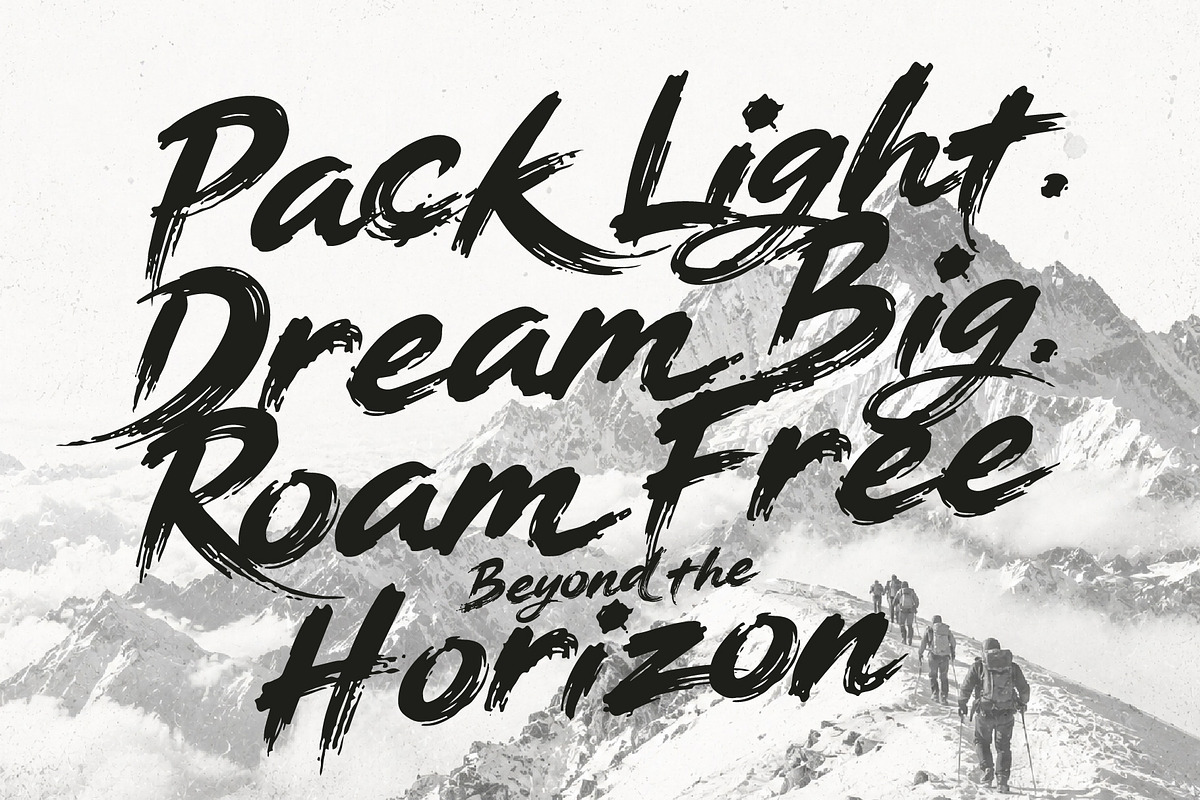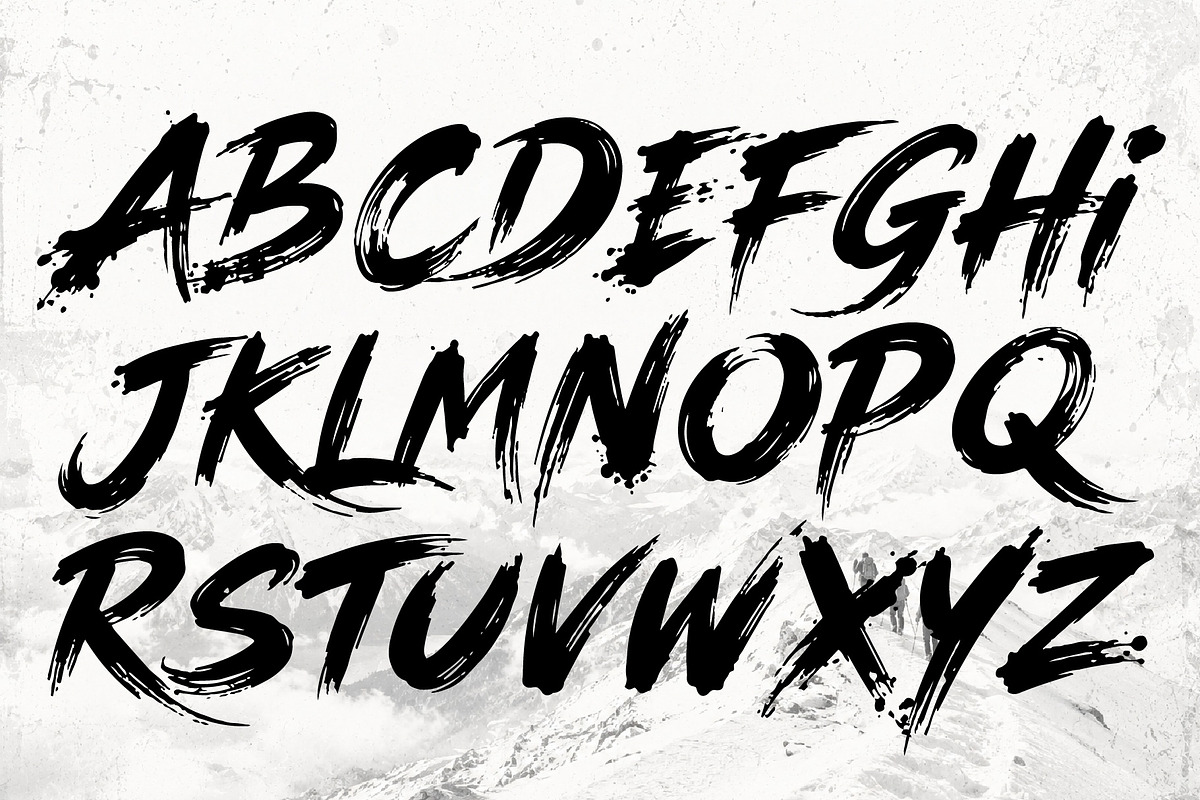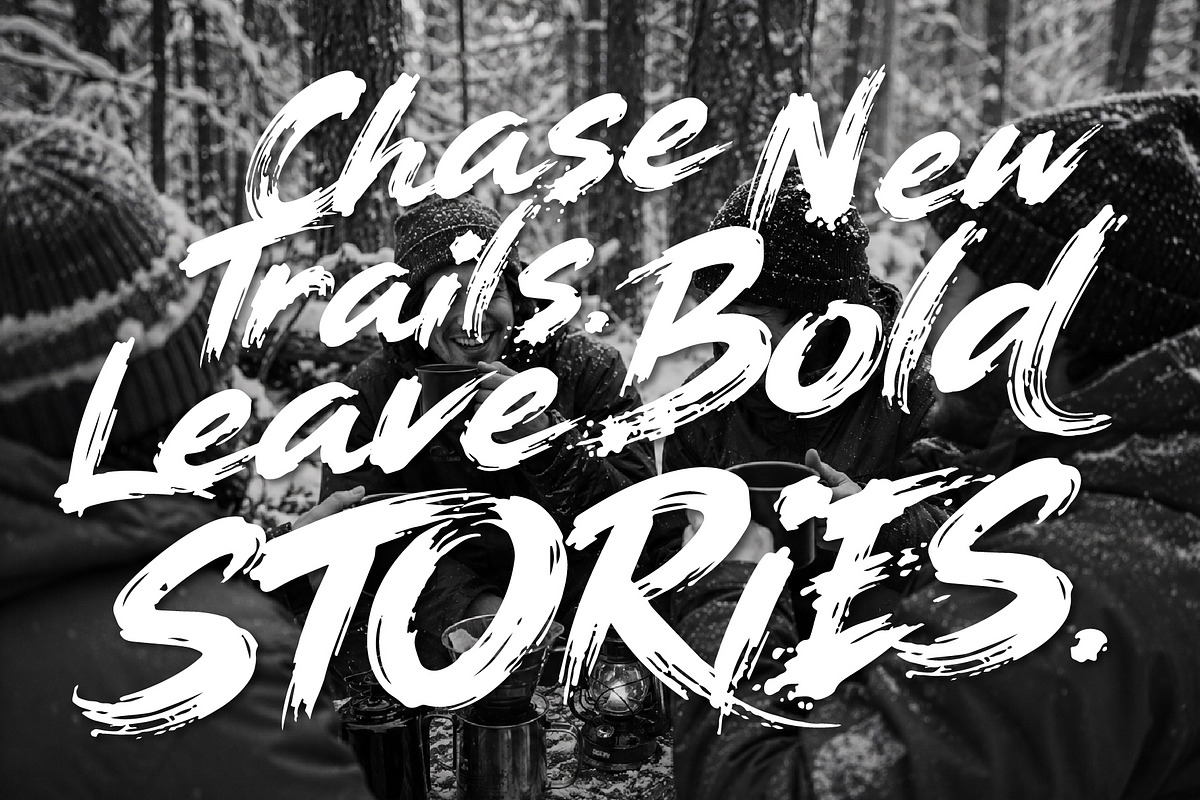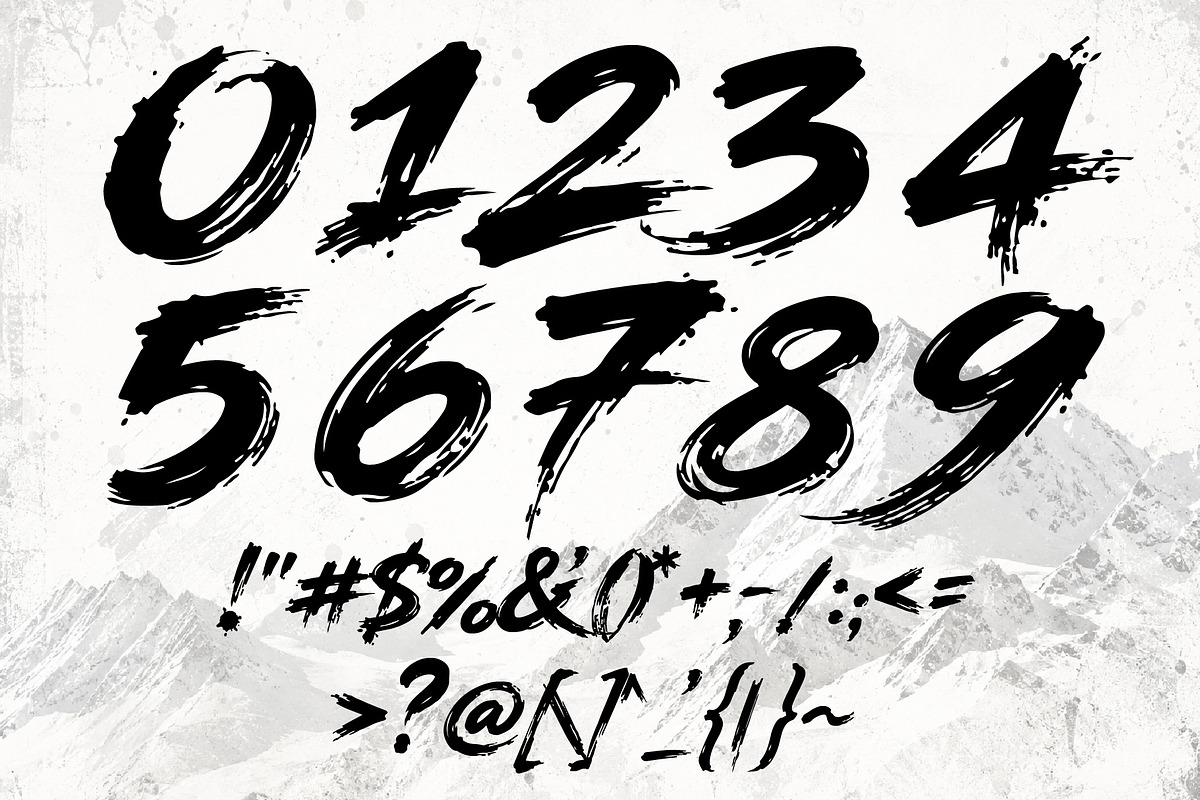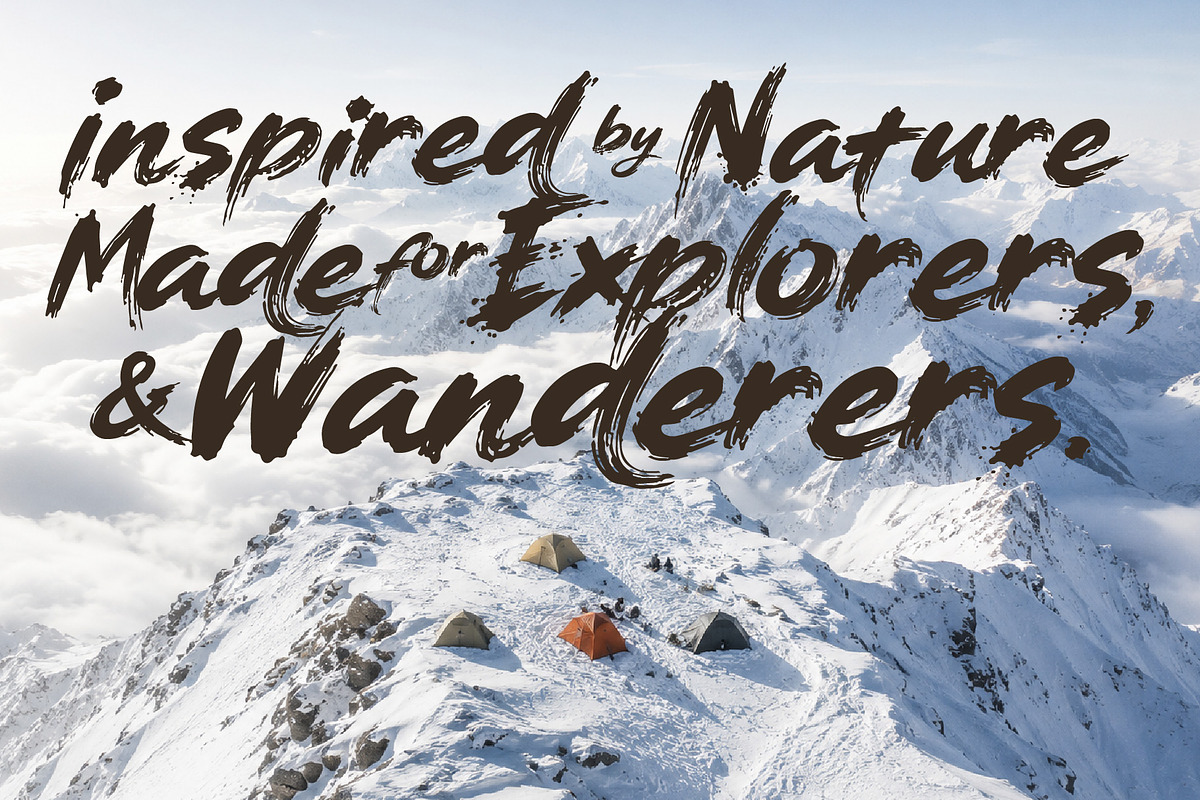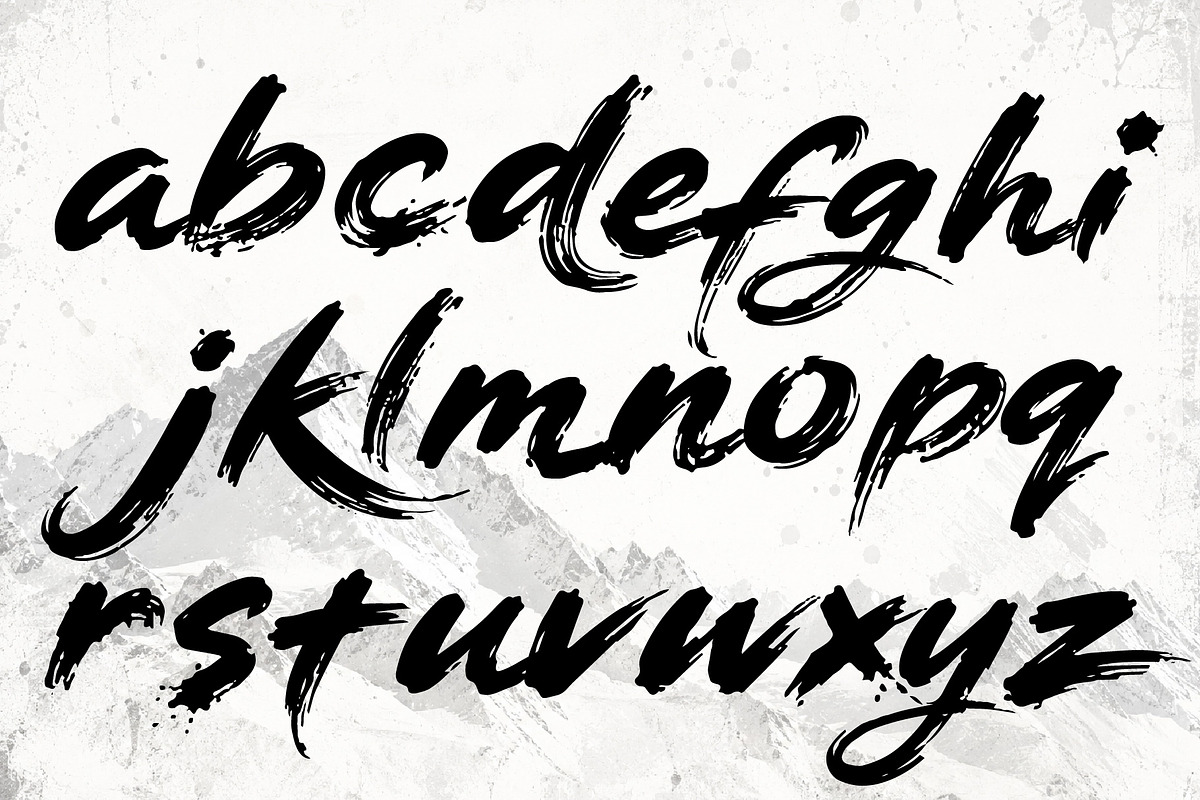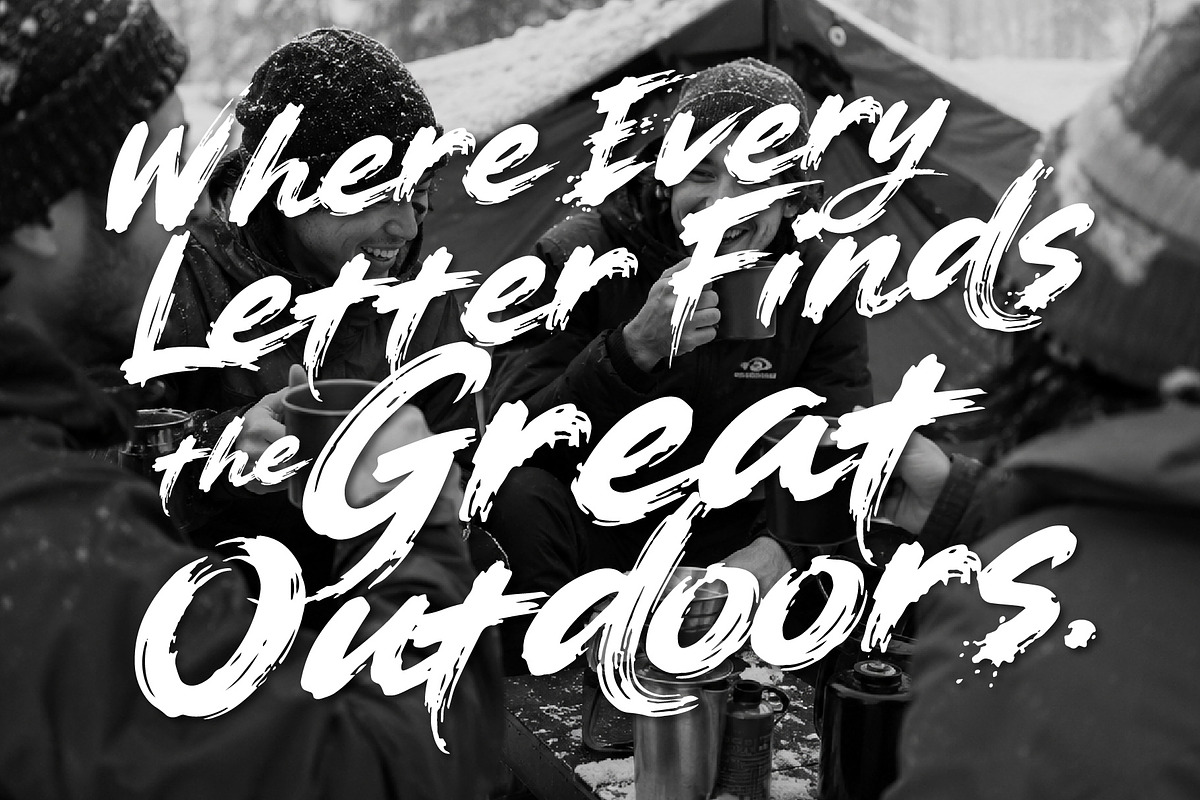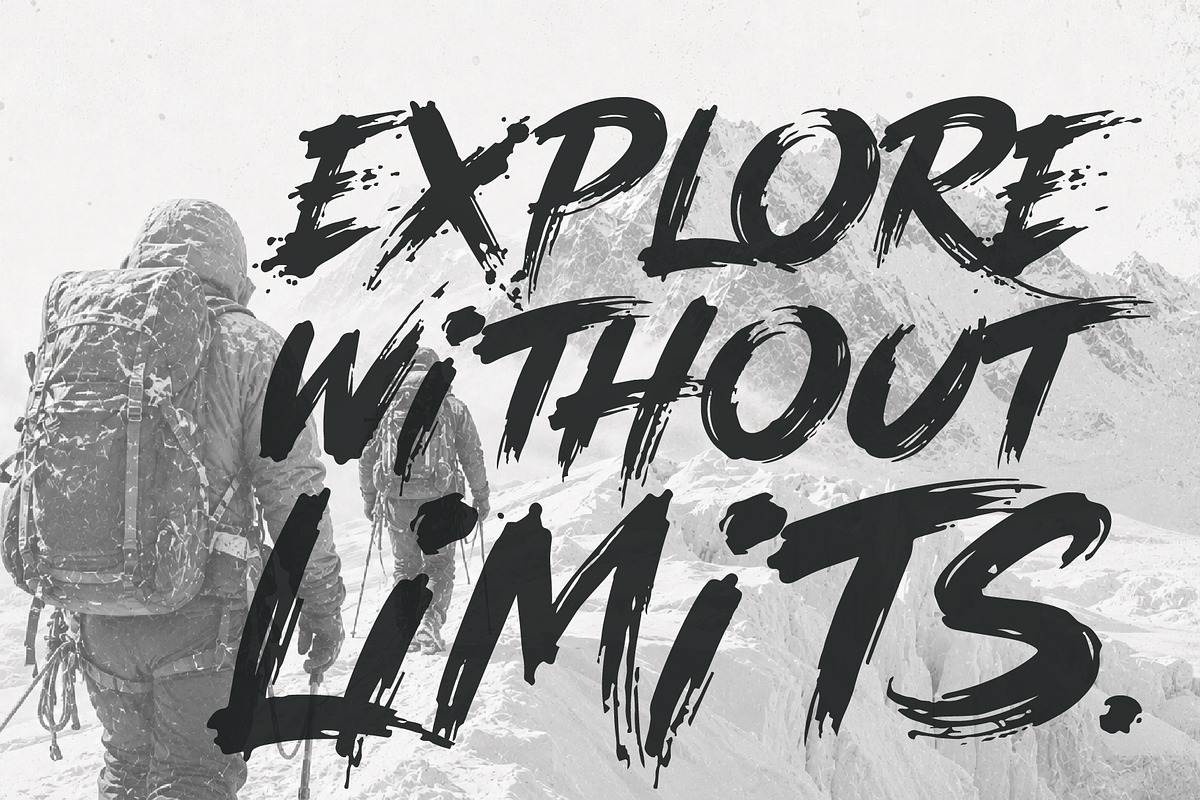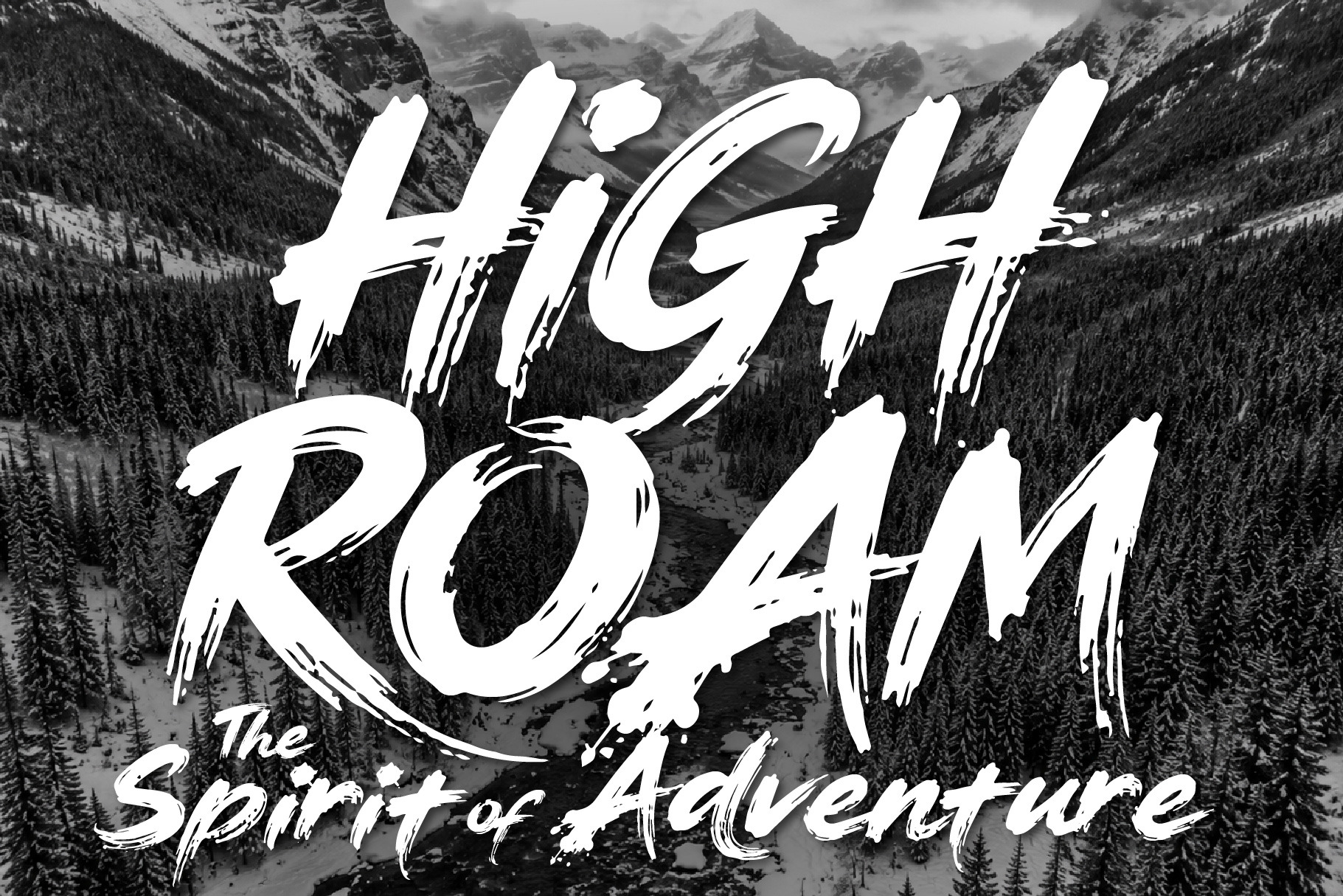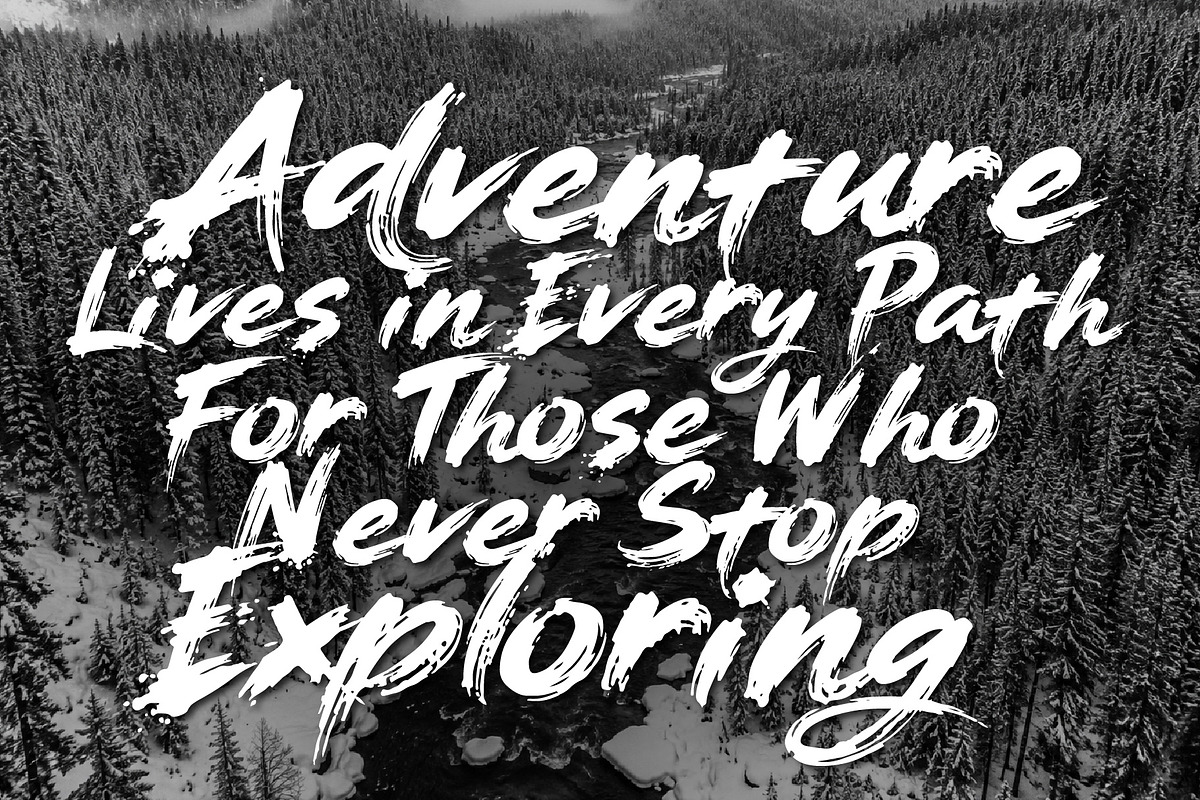
HighRoam - Wild Spirit Fonts
HighRoam is a bold adventure display font inspired by mountain trails, camping weekends, road trips, and the freedom of exploring the outdoors. Every letter is crafted with a rugged personality and enhanced by unique outdoor activity illustrations integrated into the glyphs, creating typography that instantly captures the spirit of adventure.
From hiking, camping, climbing, kayaking, and mountain biking to forests, tents, campfires, and scenic landscapes, HighRoam transforms ordinary text into eye catching adventure inspired artwork. Whether you're designing for outdoor brands or creating travel-themed graphics, this font delivers a handcrafted, energetic look that stands out.
Perfect for logos, travel posters, camping merchandise, national park branding, YouTube thumbnails, apparel, stickers, social media, packaging, adventure blogs, sports events, and outdoor festival promotions.